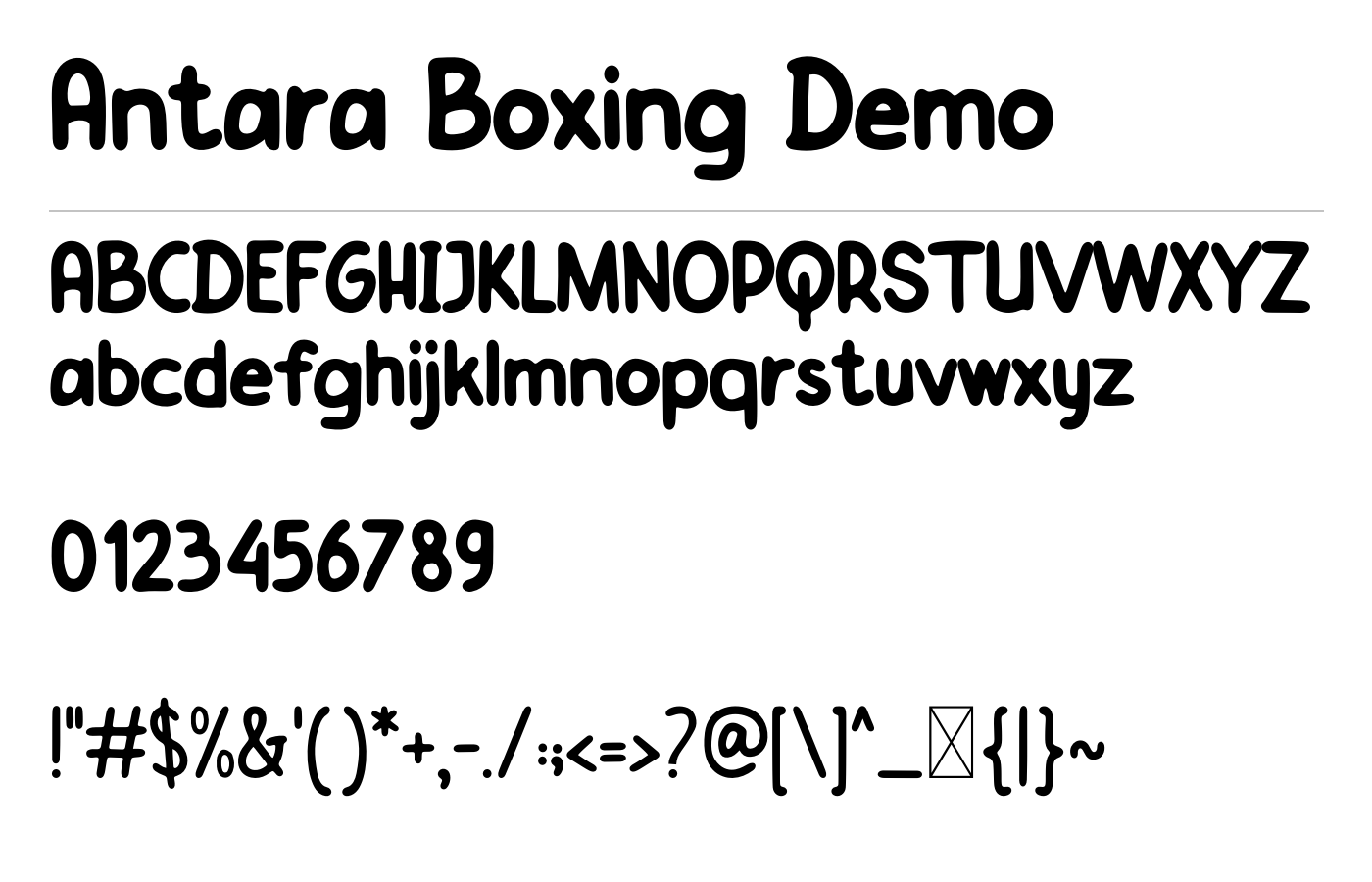
Antara Boxing Demo is a playful and rounded sans serif font with a casual, hand-drawn feel. Its uniform weight, friendly curves, and generous spacing make it ideal for informal, approachable designs such as children's books, casual branding, and fun posters. This font brings a warm and lively personality, perfect for projects seeking a cheerful and engaging tone.
Antara Boxing Demo Font